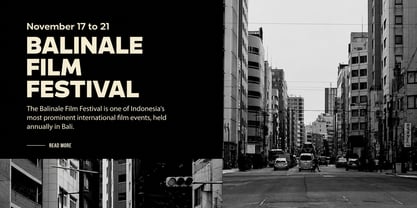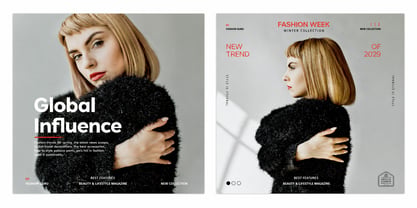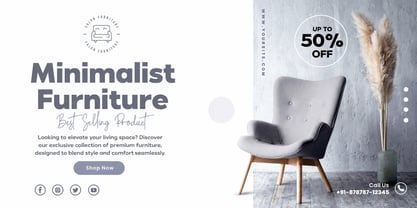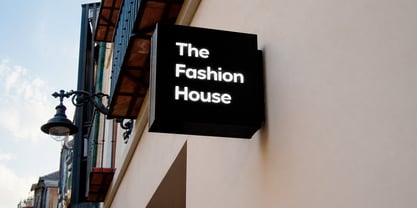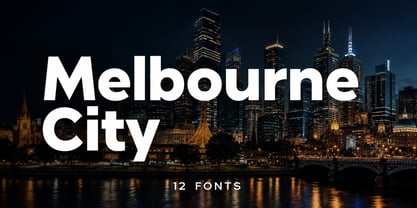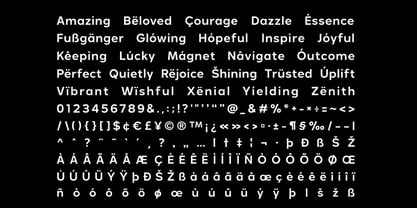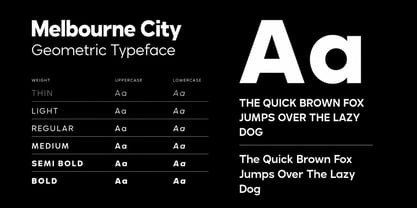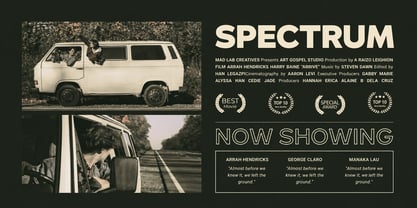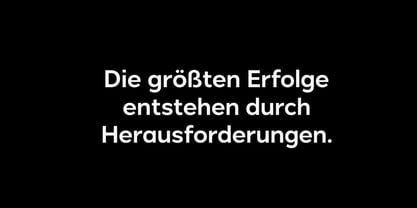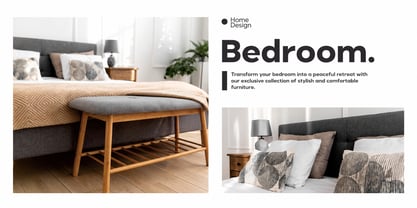
Melbourne City
The Melbourne City Font Family was designed by Faizul Muna and published by Unitype Studio. Melbourne City contains 12 styles and family package options. More about this family
Melbourne – Modern Geometric Sans Serif Font Family
Melbourne is a modern geometric sans-serif font family that combines timeless typographic principles with a contemporary design approach. Inspired by classic geometric fonts like Futura and Avant Garde, Melbourne delivers clean letterforms, balanced proportions, and a sleek visual presence that feels both professional and modern.
Designed with a high x-height, minimal stroke contrast, and precise geometric structure, Melbourne reflects the clarity and functionality of neo-grotesk typography while introducing a fresh, contemporary personality. Its crisp edges and harmonious spacing ensure excellent readability and visual consistency across different design applications.
The Melbourne font family includes 12 carefully crafted styles, giving designers the flexibility to create strong typographic hierarchies and cohesive visual identities. Each style maintains the same refined geometry, allowing your designs to remain consistent while offering enough variation for creative expression.
Melbourne performs exceptionally well across a wide range of professional design contexts. From branding systems, editorial layouts, and advertising campaigns to UI/UX interfaces and website typography, this font adapts effortlessly while maintaining a clean and sophisticated aesthetic.
It’s especially effective in high-impact design areas such as logos, headlines, signage, and packaging, where clarity and visual strength are essential. The geometric precision of Melbourne makes it an excellent choice for industries like fashion, technology, creative studios, startups, and corporate branding.
Whether used for bold headlines or refined text compositions, Melbourne provides a modern typographic voice that communicates confidence, clarity, and style.
Key Features
Modern Geometric Sans Serif
Inspired by classic fonts like Futura and Avant Garde.
12 Font Styles
A versatile font family designed for flexible typography.
Clean Neo-Grotesk Influence
High x-height and minimal stroke contrast for clarity.
Professional & Contemporary Look
Sharp geometry that enhances modern design projects.
Perfect for Branding & UI Design
Ideal for digital and print applications.
Multilingual Support
Extended character set for international design needs.
Perfect For
• Logo Design & Brand Identity
• Editorial & Magazine Layouts
• Website Typography
• UI/UX Design
• Advertising & Marketing Materials
• Packaging Design
• Signage & Posters
• Fashion & Technology Branding
Elevate Your Typography with Melbourne
If you’re looking for a typeface that blends geometric precision, modern style, and professional versatility, Melbourne is the perfect addition to your font library. Its clean structure and flexible styles make it ideal for creating powerful branding, elegant layouts, and contemporary digital designs.